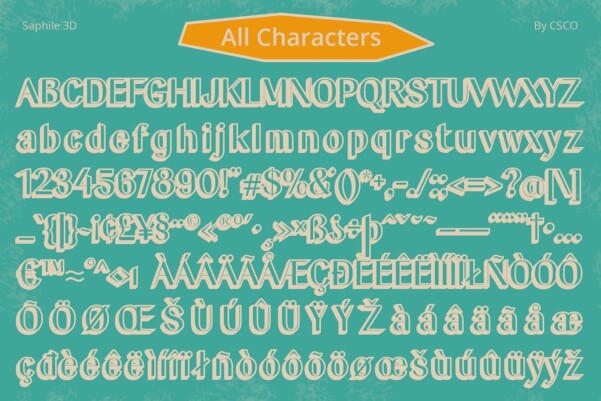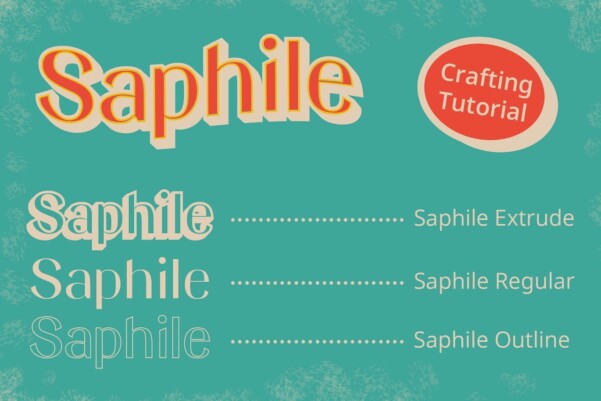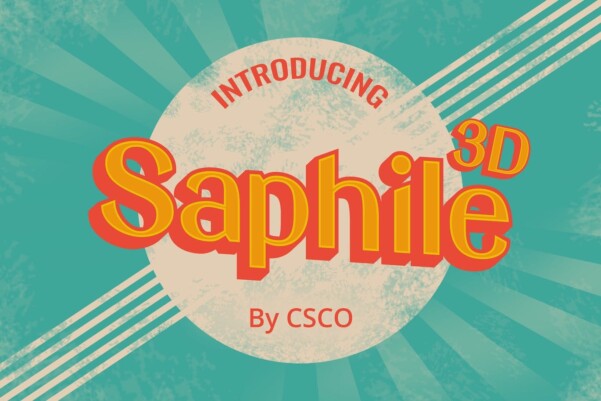
Saphile 3D Font
Saphile 3D font: a retro revival with a contemporary touch
Nostalgic vibe, modern appeal Immerse yourself in the vibrant ’90s era with Saphile 3D, a sans serif display font that effortlessly blends retro nostalgia and contemporary touch.
Dimensional Illusion Saphile 3D is not a typical retro font. Using a unique blend of extrusion and outline effects, each character takes on a realistic, three-dimensional appearance, adding a modern twist to their nostalgic roots.
Bold, Playful Typography Immerse your designs in bold, playful typography that captures the essence of the ’90s. Saphile 3D’s dynamic visual presence makes it an ideal choice for eye-catching headlines and attention-grabbing displays.
Conclusion Saphile 3D is much more than a typeface; it is a bridge between eras. Whether you want to create retro designs or infuse a touch of nostalgia into contemporary projects, this font perfectly combines the best of both worlds.